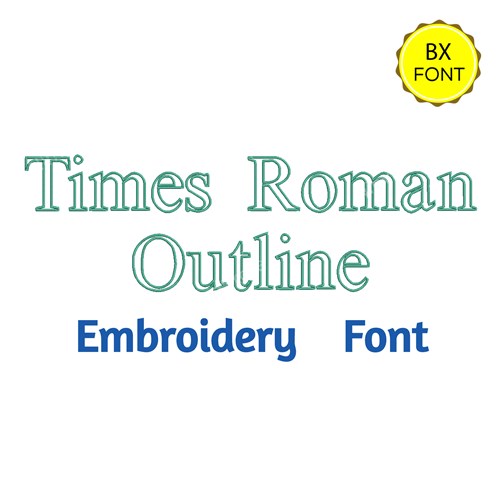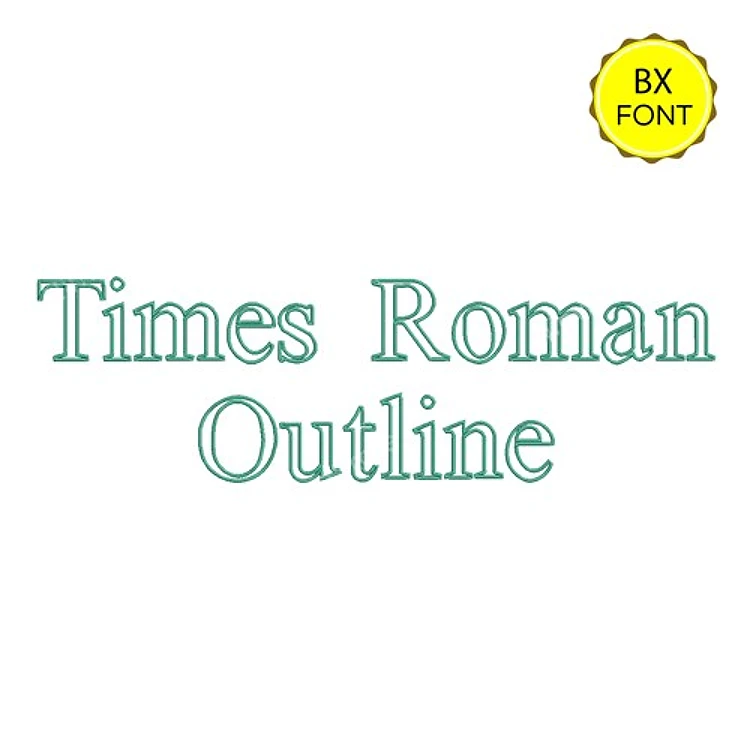
Times Roman Outline Embrilliance Embroidery Font - Outline Lettering - BX font by Maya Kreations and other embroidery fonts available at EmbroideryDesigns.com.
Maya Kreations is happy to present Times Roman Outline Embrilliance Embroidery Font - Outline Lettering - BX font machine embroidery font which has Outline embroidery font designed for crisp, clear edges, ideal for use on structured items like tote bags and jackets. Available in BX font and other Embrilliance formats. included. If you would like to view more embroidery fonts and alphabets please search our embroidery fonts page.
Times Roman Outline Embrilliance Embroidery Font - Outline Lettering - BX font